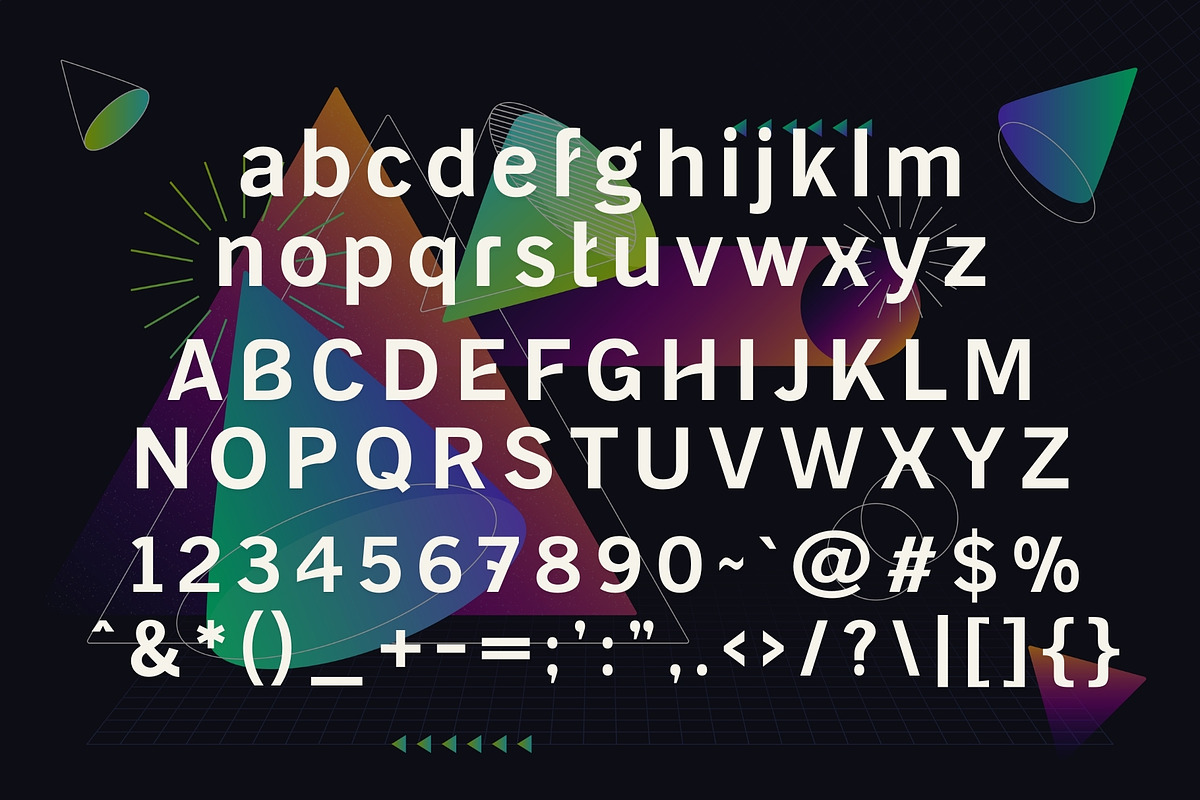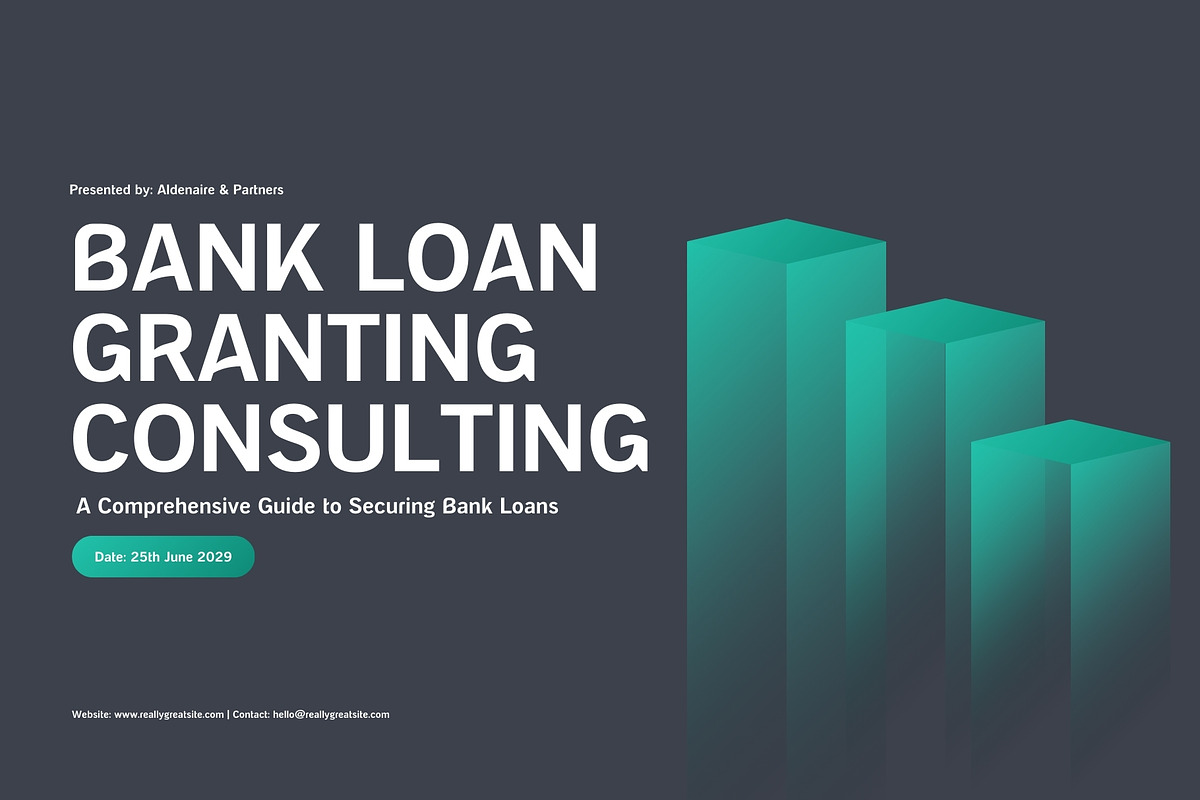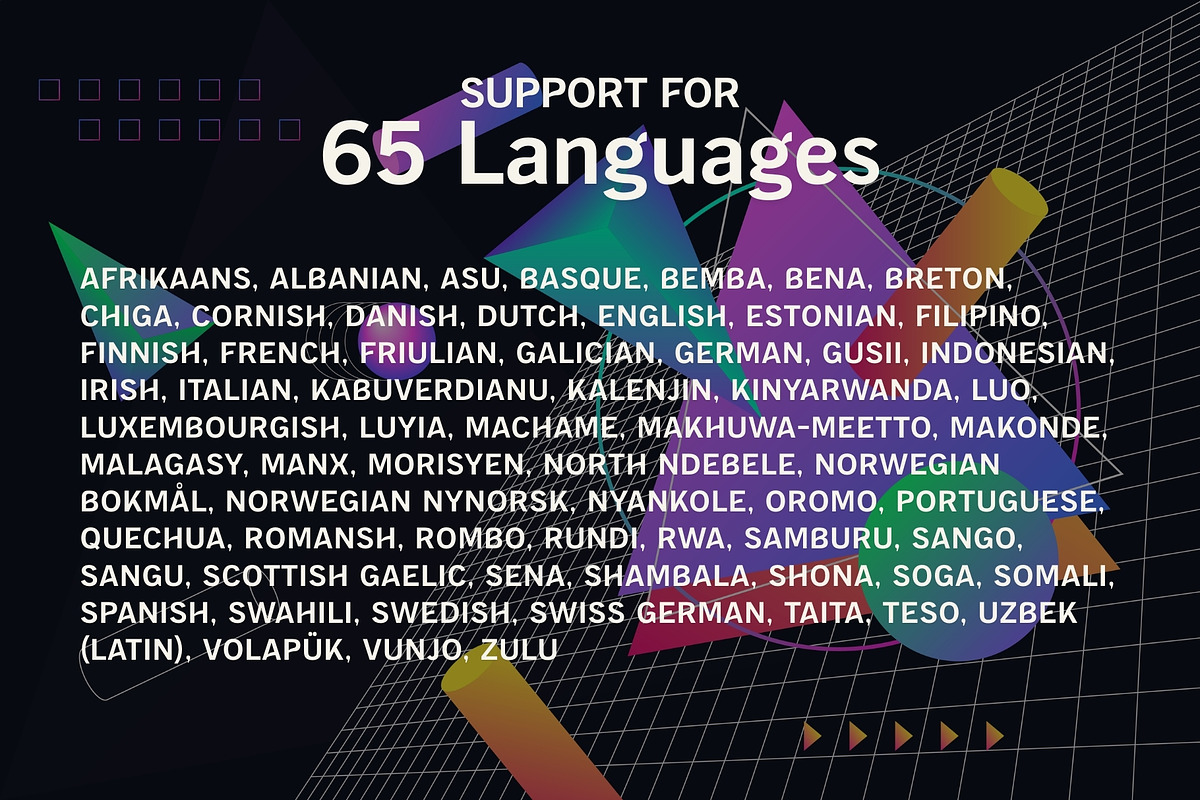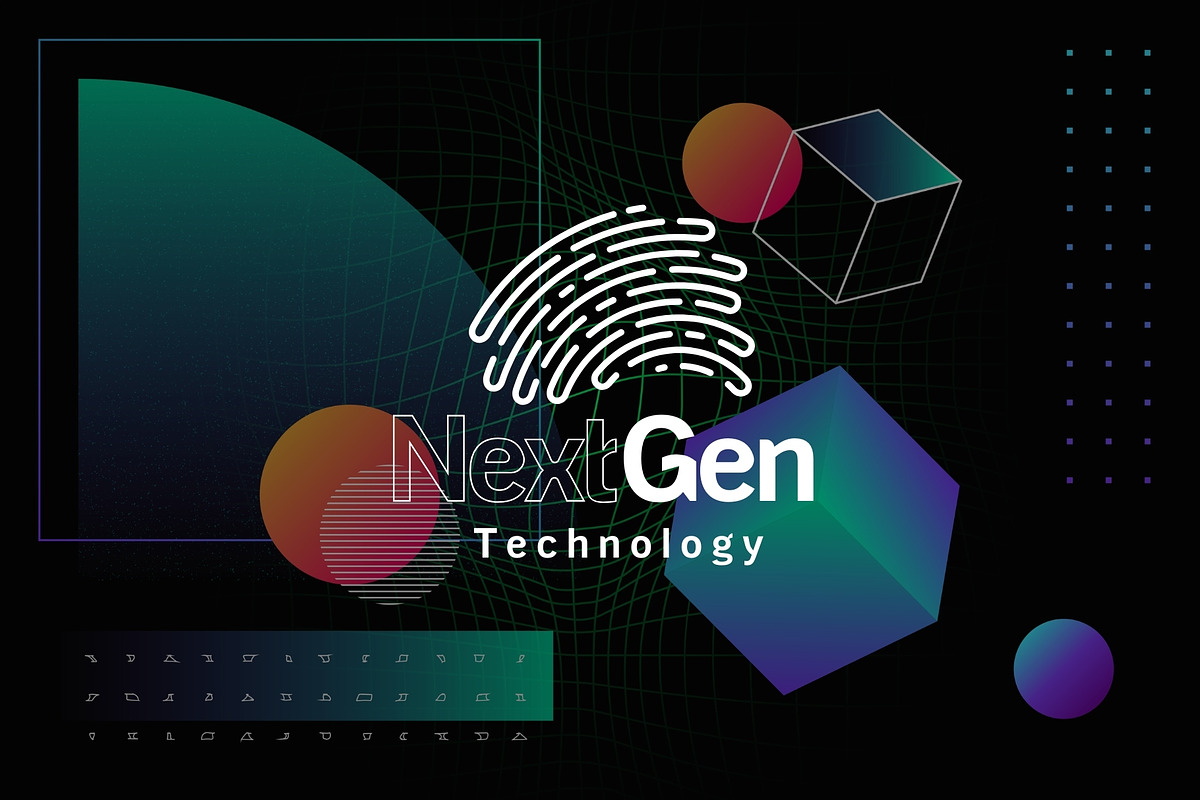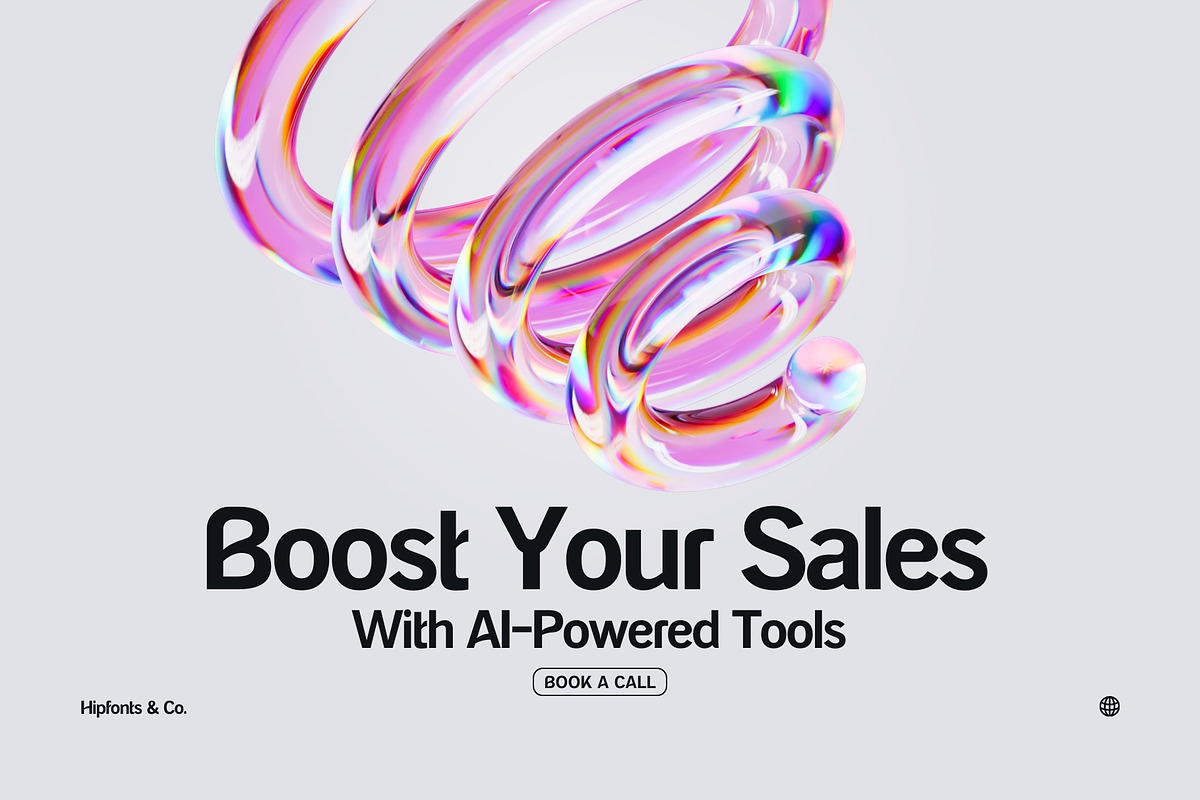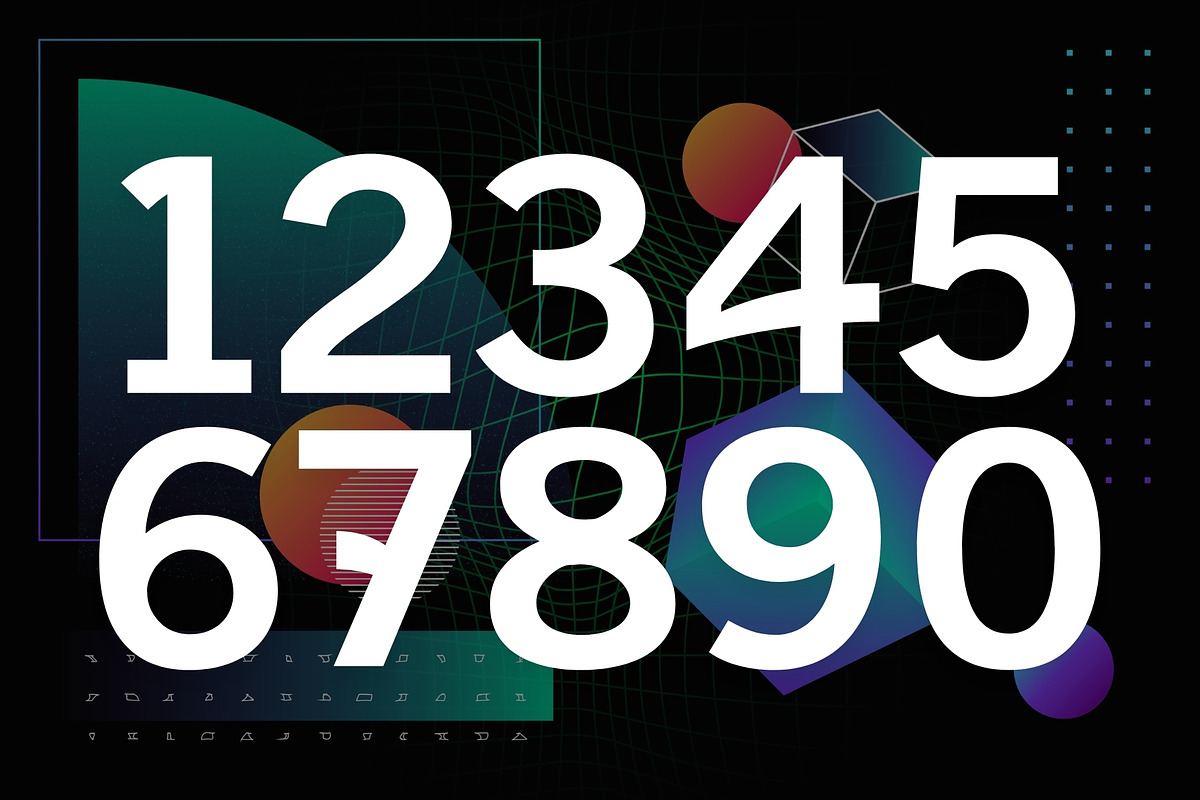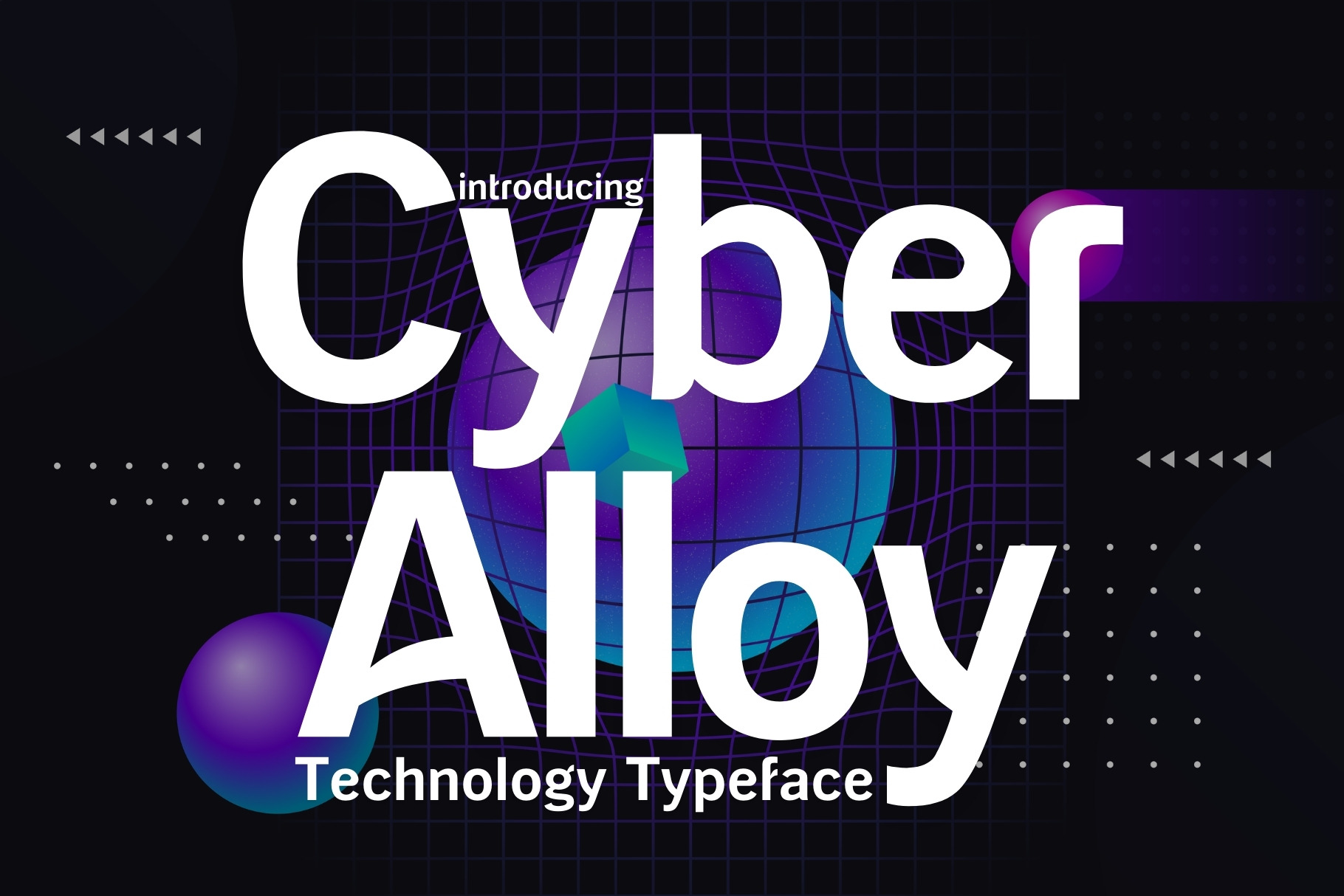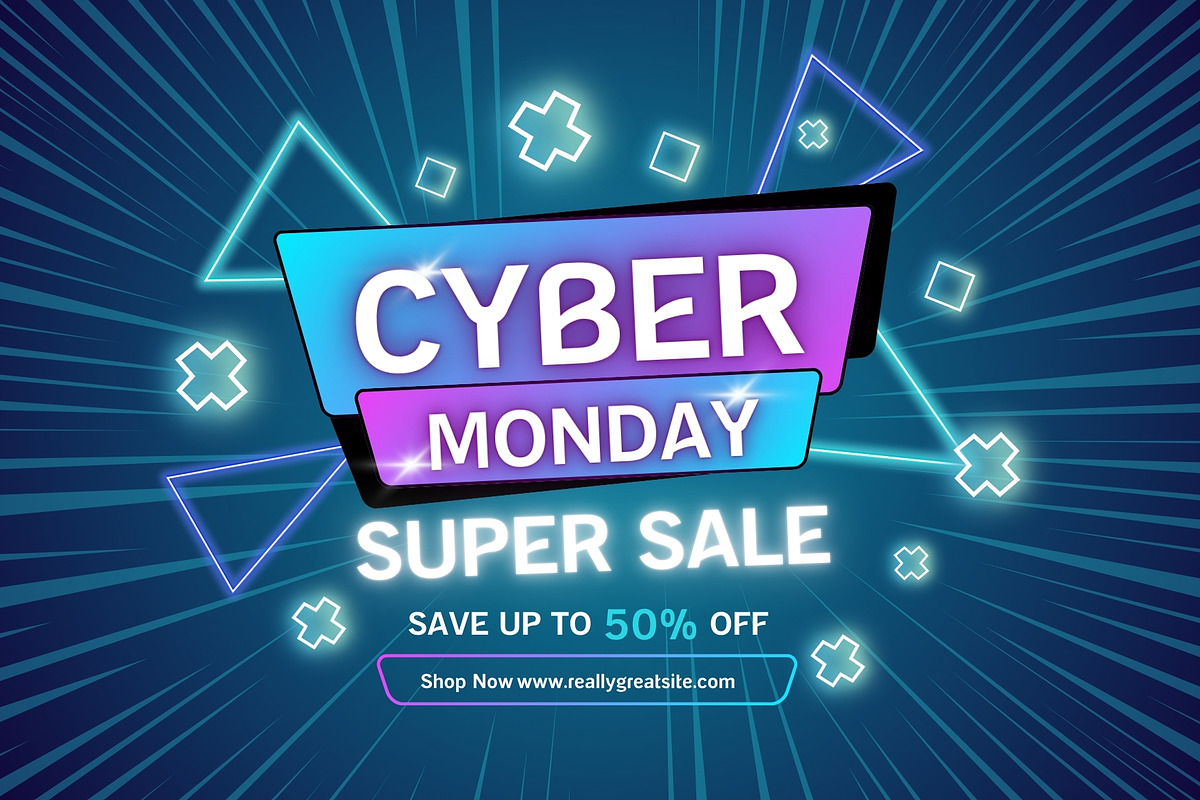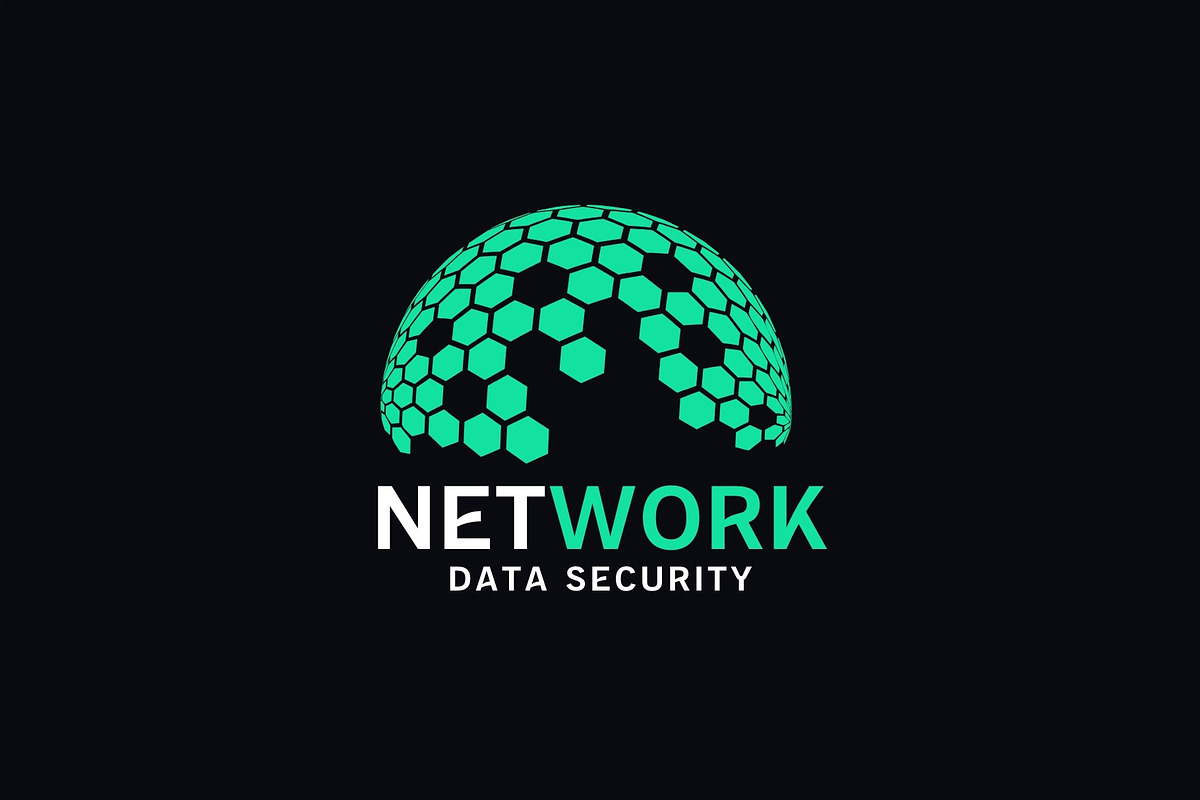
Cyber Alloy - Technology Font
Cyber Alloy is a clean, modern sans serif typeface built for the future. Designed with precision and clarity in mind, it delivers a sleek, minimal, and highly professional aesthetic that feels right at home in cutting-edge industries.
Whether you’re building a startup brand, designing fintech dashboards, launching an AI product, or creating futuristic visuals, Cyber Alloy gives your work a confident, high-tech presence without unnecessary noise.
This font is all about clarity, balance, and modern authority.
🚀 Perfect For Modern & Tech-Driven Brands
Cyber Alloy is ideal for:
- Startups & tech companies
- Fintech & financial platforms
- Artificial intelligence & robotics
- Crypto & blockchain projects
- SaaS products & apps
- Websites & UI/UX design
- Logos, branding & pitch decks
- Futuristic posters & marketing
Its clean geometry and sharp letterforms ensure excellent readability while maintaining a distinctly futuristic edge.
🧠 Designed for Performance
- Minimal & modern letterforms
- Professional, clean appearance
- Works beautifully for digital & print
- Ideal for headlines, branding & interfaces
- Timeless futuristic style (not trendy, not gimmicky)
Cyber Alloy is built to scale — from small UI text to bold brand statements.
💡 Why Designers Choose Cyber Alloy
- Modern without feeling cold
- Futuristic without being overdesigned
- Perfect balance of form and function
- Strong identity for high-tech brands
- A versatile workhorse for serious projects
If your brand lives in the future of technology, Cyber Alloy belongs in your toolkit.